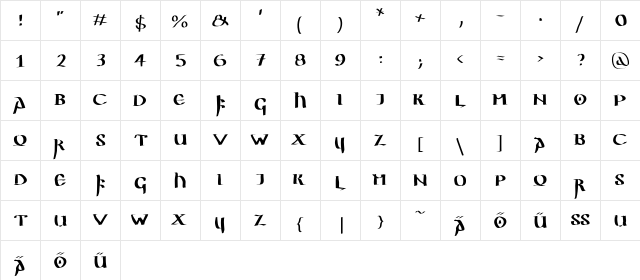
GGothiqueMK Regular
Design Context for GGothiqueMK Typeface
GGothiqueMK is a composed and adaptable typeface that performs quietly and consistently across a wide range of design contexts.